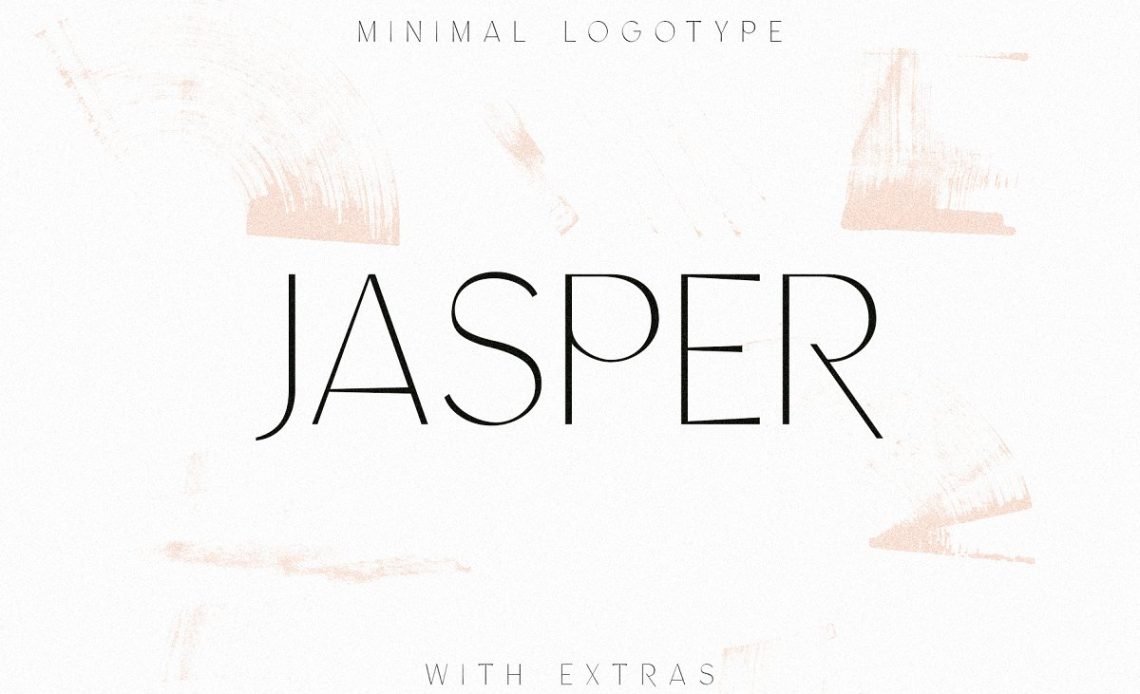
Introducing Jasper Font with Extras - the best font style for bloggers! Designed by Jen Wagner, Jasper is a stunning sans serif font that's perfect for creating clean, minimal logos and striking headings. Its simple yet elegant structure makes it easy to read, while its tapered lines create visual interest that's sure to captivate your audience.
But that's not all - when you download Jasper, you'll also get six bonus logo templates that you can edit and customize in Photoshop or Illustrator. Plus, there are 16 bonus textures with transparent backgrounds, so you can use them on top of any color!
Jasper Sans features uppercase letters, including alternate letters for B and R, as well as numbers and extended punctuation. And for the international designer, Jasper also includes foreign language accents and characters.
Looking for some font pairings to complement Jasper? Try Margo Script, Kyoto Wedding Script, Minion Pro Italic, Bebas Neue, Proxima Nova, or Helvetica. The possibilities are endless!